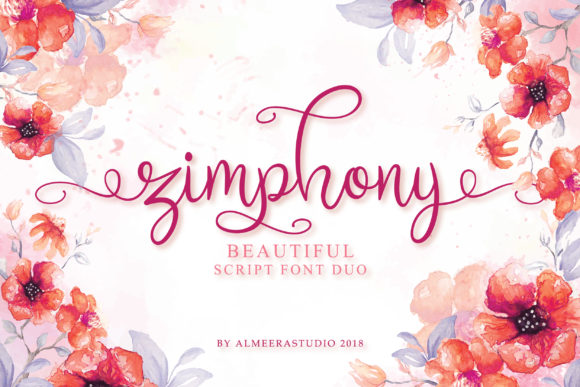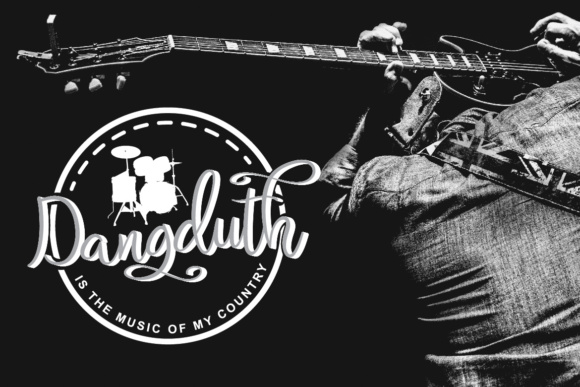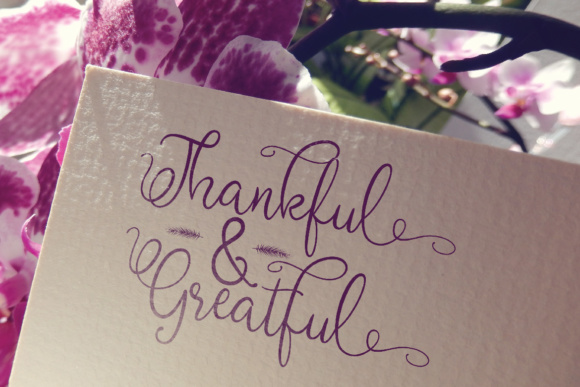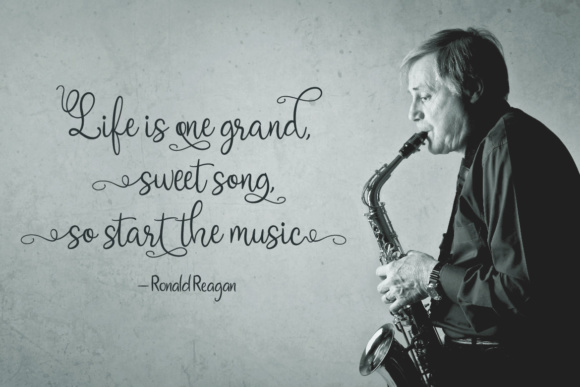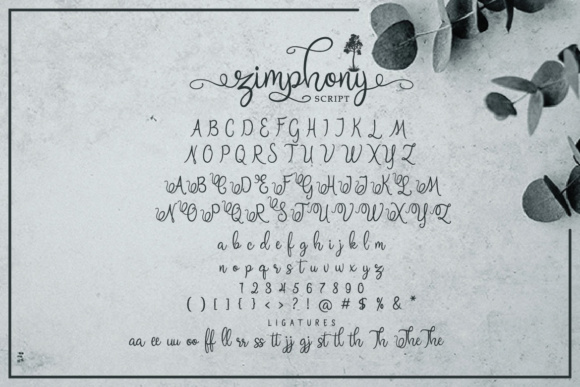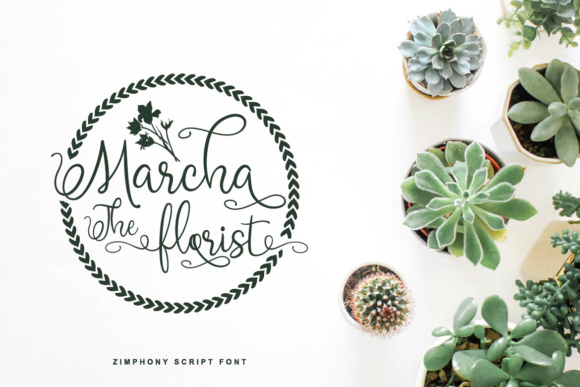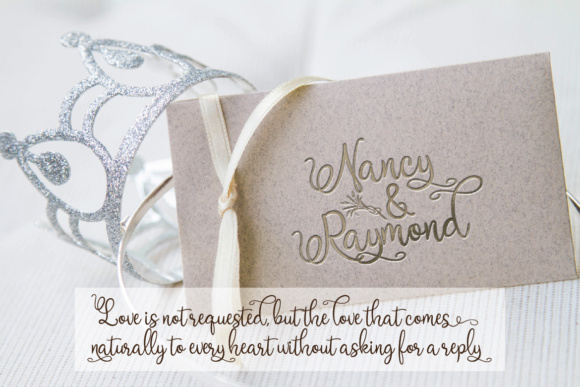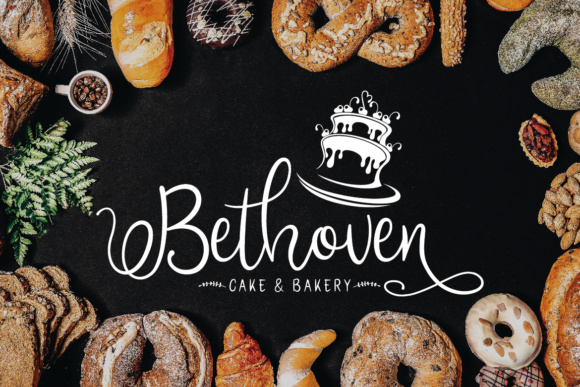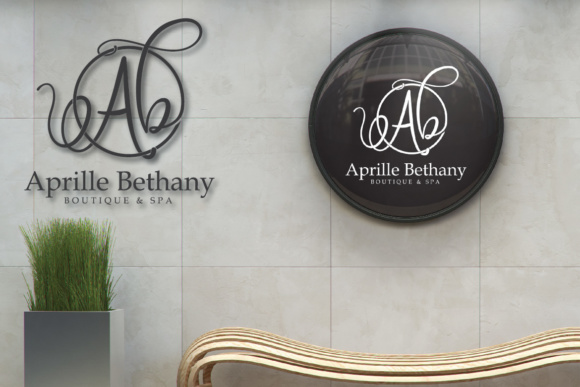
Zimphony Duo Font
About Zimphony Duo Font
The Zimphony is a beautiful script font. It has a feminine appearance and is suitable for logos, invitations, but can also be used to make quotes or titles.
The Zimphony script comes with 2 versions: script and sans, and also with an extra bonus doodle to make logos, invitations, and much more!